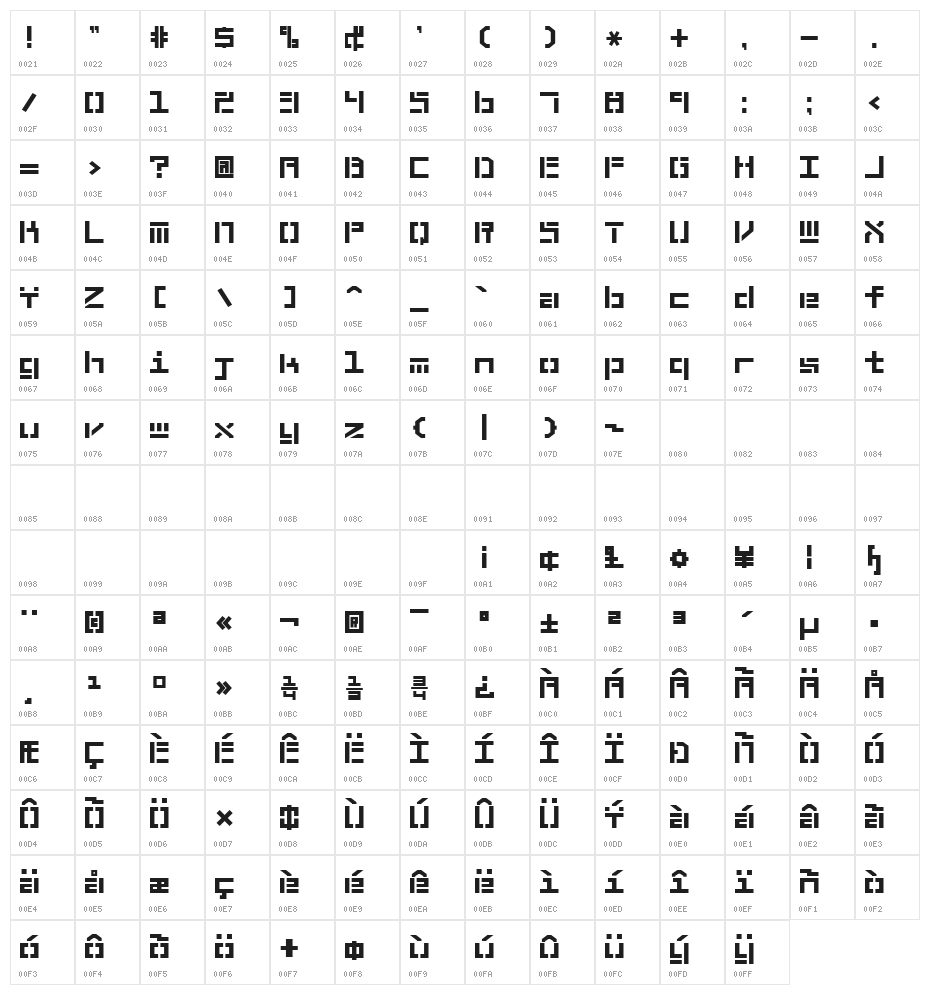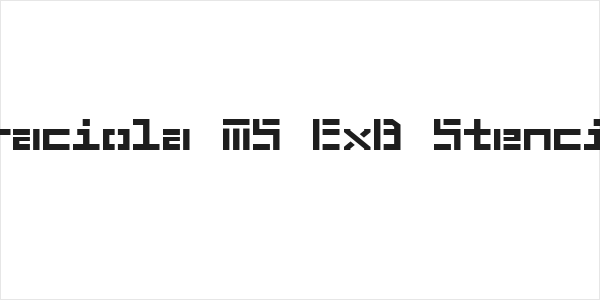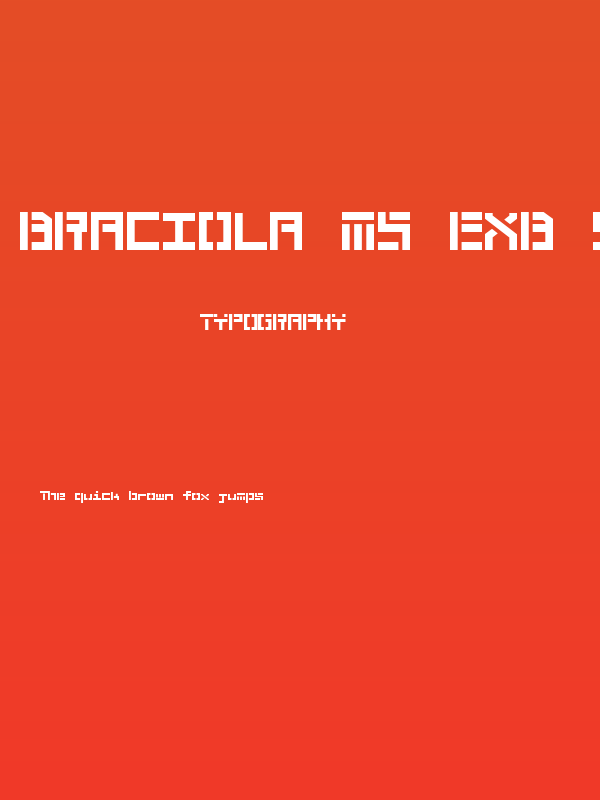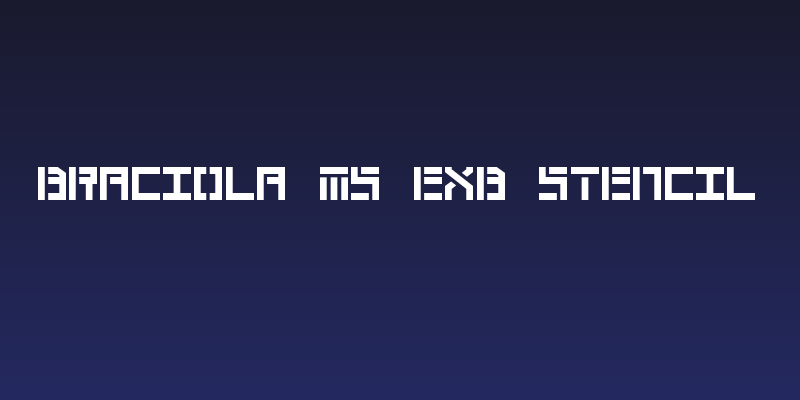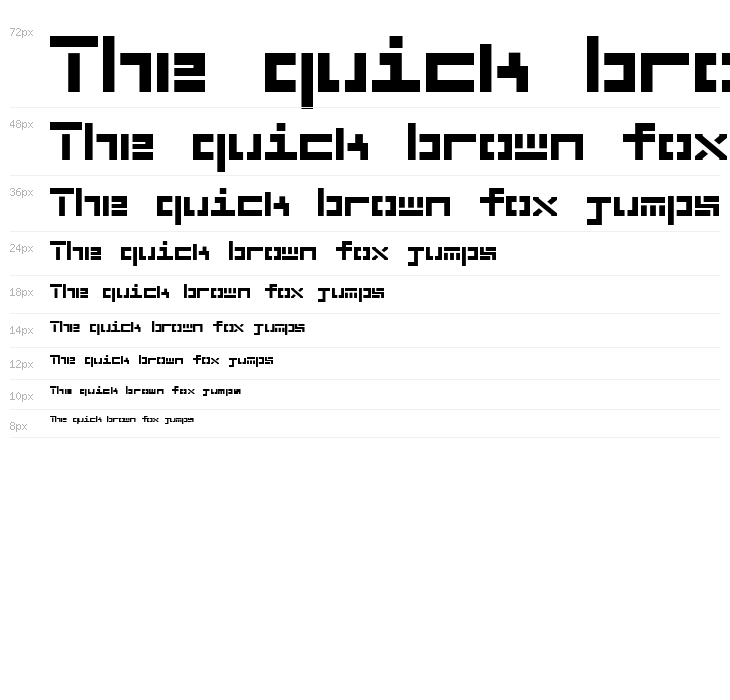
Braciola MS ExB Stencil Font
Braciola MS ExB Stencil Description
This font features a bold, geometric stencil design with a modern and futuristic aesthetic. Each character is constructed with sharp, angular lines and consistent block-like shapes, creating a sense of uniformity and strength. The uppercase and lowercase letters maintain a cohesive style, with the lowercase mirroring the uppercase in structure but with slightly reduced height. Numbers and special characters follow the same design principles, ensuring a seamless visual experience. The font's stencil nature allows for unique cutouts within each character, adding an industrial and technical feel. This design is ideal for projects that require a bold and impactful statement, such as branding, posters, and signage.